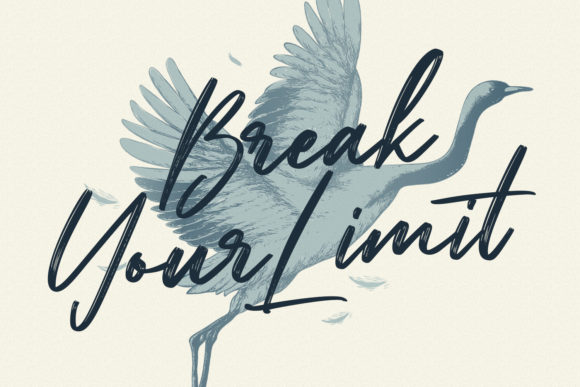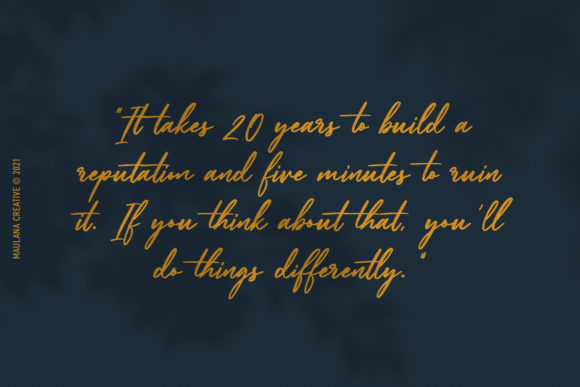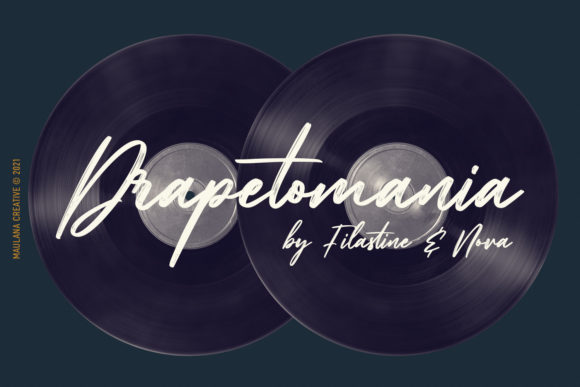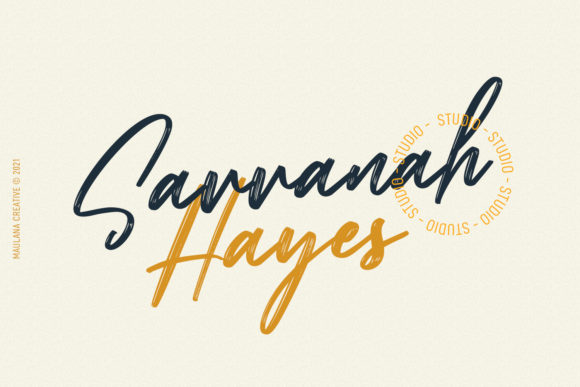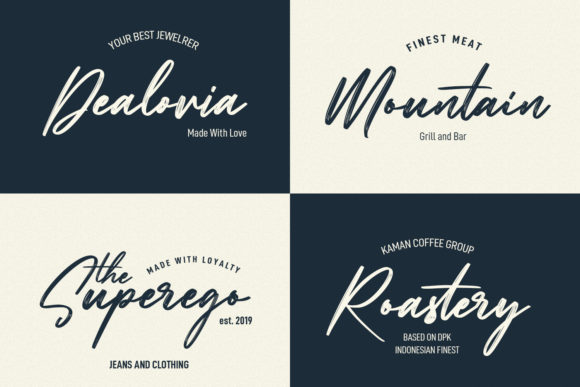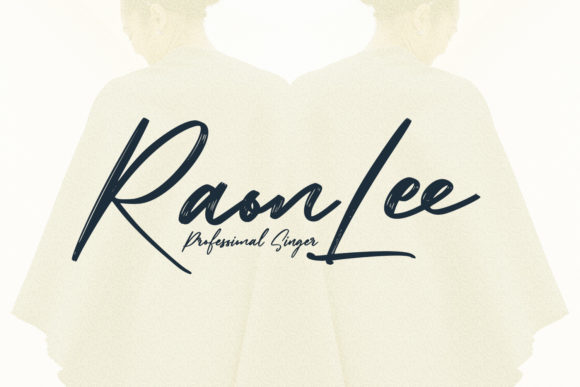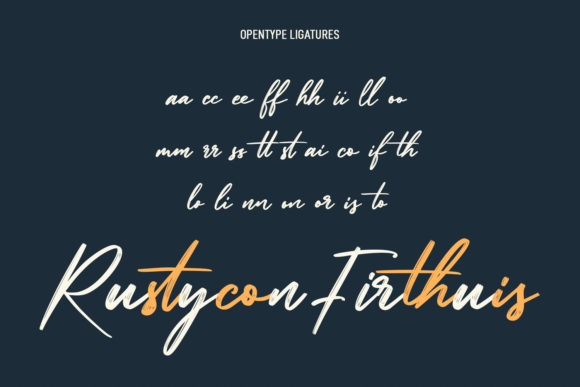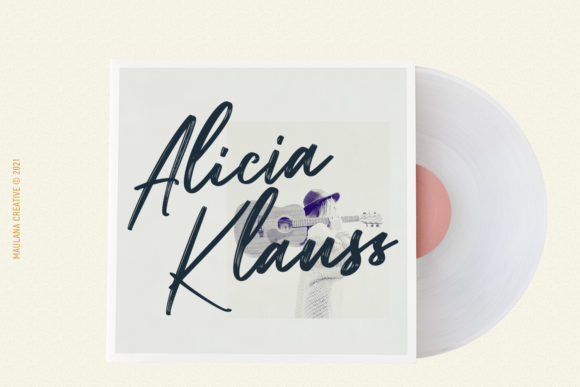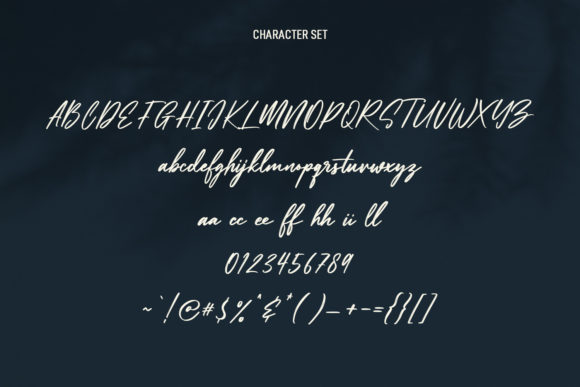
Bootleg Hayes Font
About Bootleg Hayes Font
Bootleg Hayes is a simple and flowing handwritten font. This adaptable font will look great on a variety of design ideas. It will add a fun and friendly touch to each of your projects!